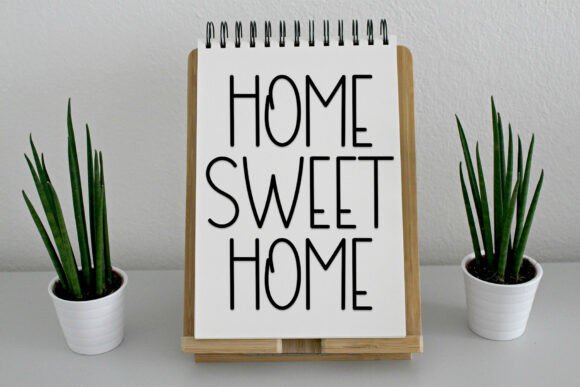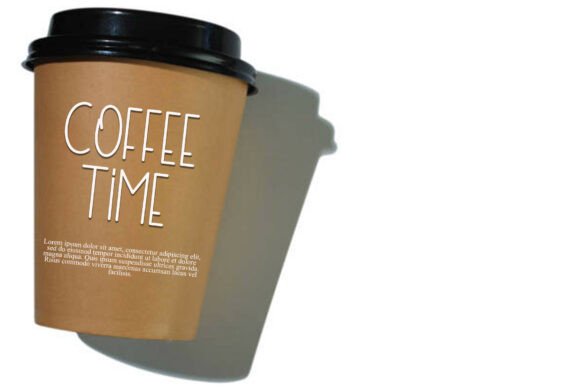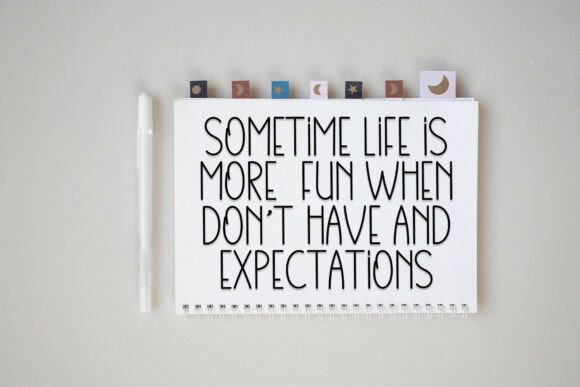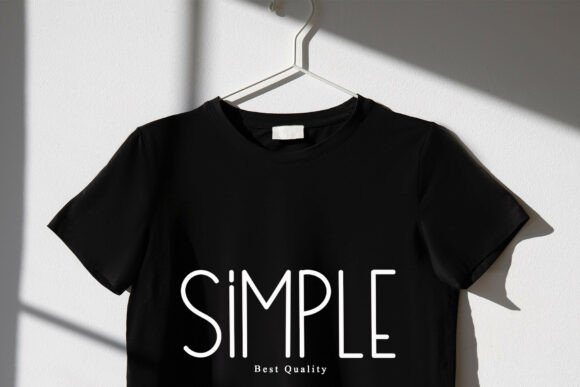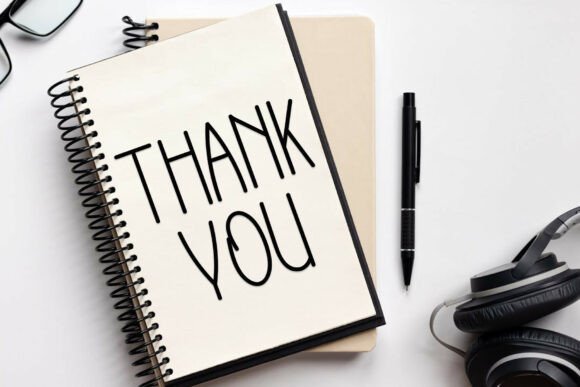
The Magic of Camping Planner Font: A Festive Design Essential
Ah, the holiday season. A time for joy, giving, and creating beautiful designs that capture the spirit of the season. I still remember the year I was tasked with designing a Christmas card for a client’s family reunion. I spent hours scrolling through font after font, trying to find the perfect one that would convey the warmth and cheer of the season. And then, I stumbled upon Camping Planner Font. It was like a breath of fresh air – festive, happy, and full of unique flair. In this article, I’ll share my experience with Camping Planner Font, its features, and how to make the most of it in your designs.
I’ve had the pleasure of working with Camping Planner Font on several projects, and here’s what I think:
- ✨ Festive and playful vibe: Camping Planner Font is perfect for holiday-themed projects, adding a touch of charm and nostalgia to your designs.
- 🎉 Decorative elements: The font features unique decorative elements that will make your designs stand out.
As for quirks, I’ve noticed a few:
- 🤔 Limited use outside of holiday themes: While Camping Planner Font is amazing for holiday designs, it might not be the best choice for other types of projects.
- ⚠️ Some glyphs may require manual adjustment: Depending on the design, some glyphs might require manual adjustment to ensure proper spacing and alignment.
The Story Behind Camping Planner Font
Camping Planner Font was designed with the holiday season in mind. The creator wanted to capture the magic and wonder of the season in a font that would be both festive and fun. Inspired by vintage holiday decorations and the great outdoors, Camping Planner Font brings a touch of nostalgia and cheer to any design.
| Font Name | Camping Planner Font |
| Author | NYA Letter |
| Is Camping Planner Font suitable for body text? | While Camping Planner Font is beautiful, it’s best suited for headlines, titles, and short paragraphs. Its decorative nature makes it less ideal for lengthy body text. |